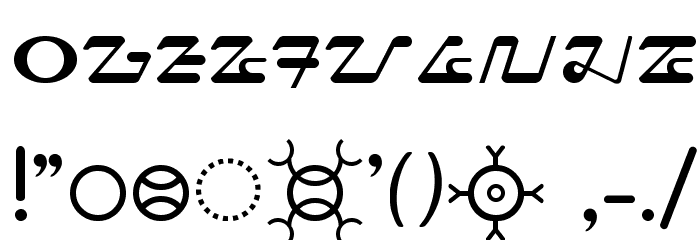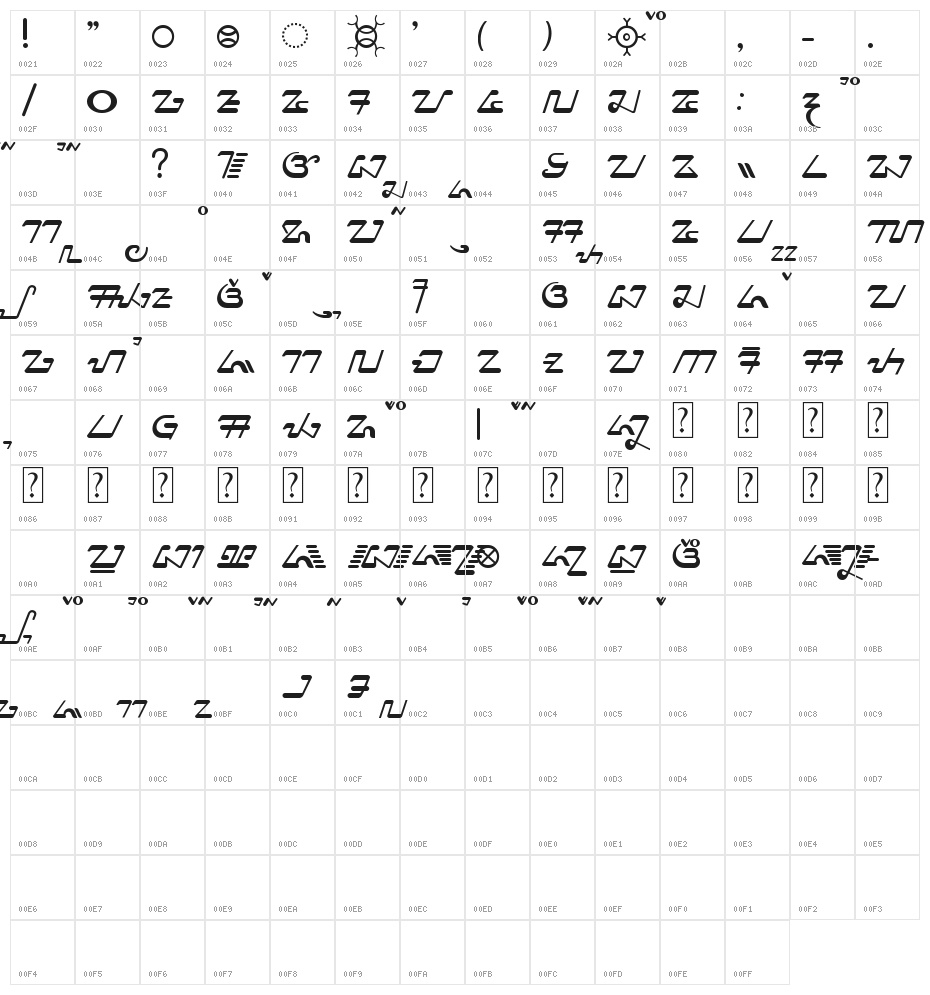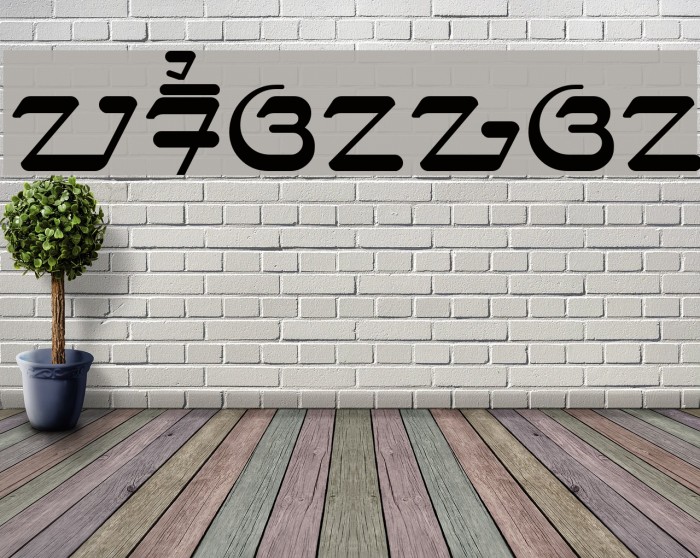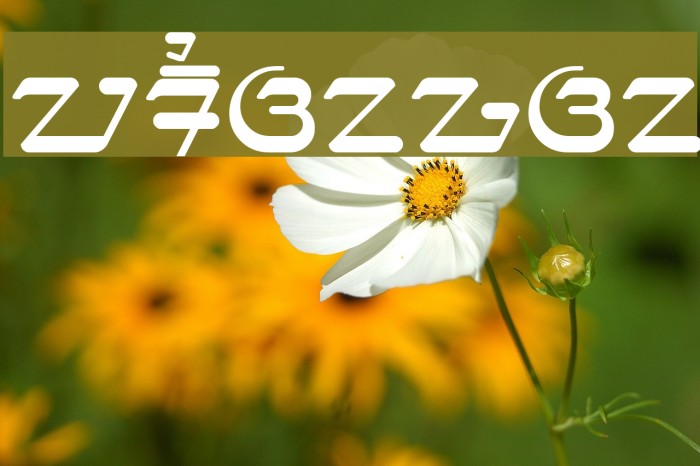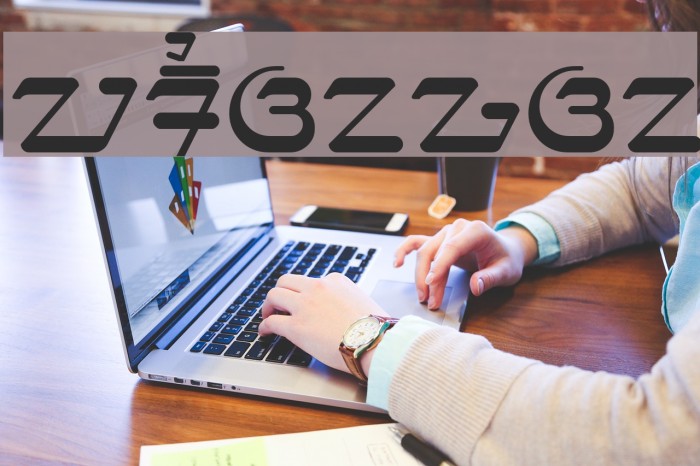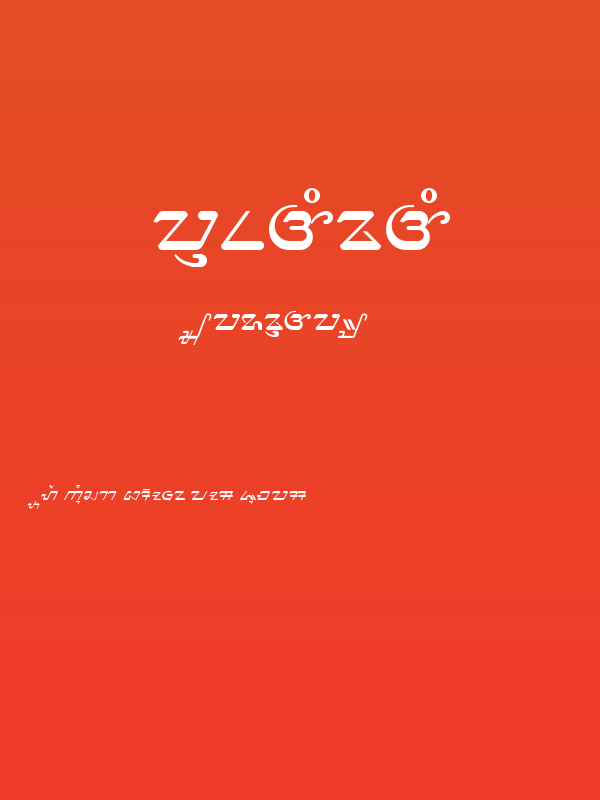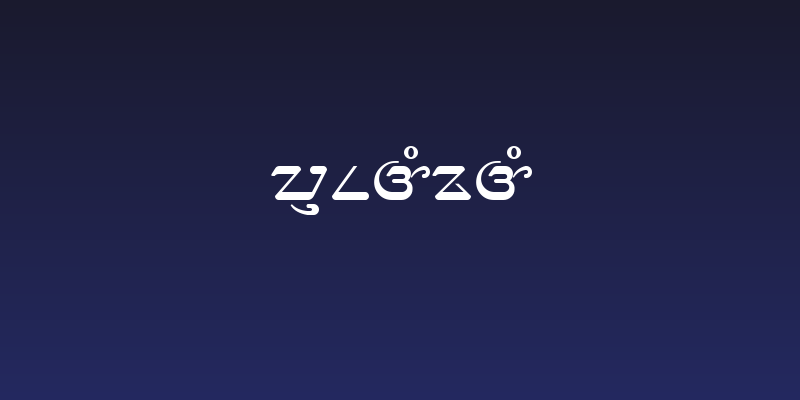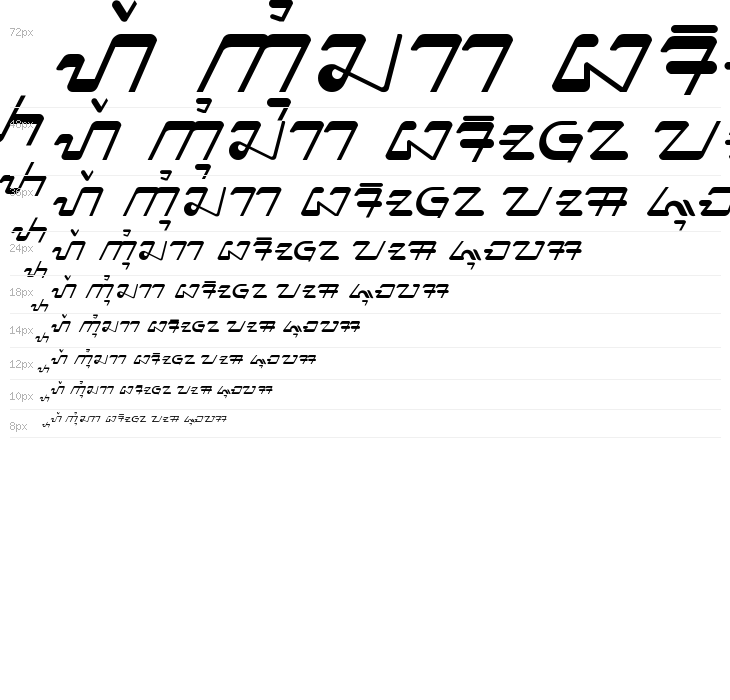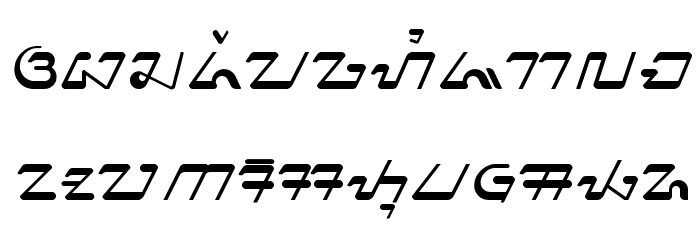
Priangan Font
Priangan Description
This font features a unique and decorative style, characterized by its flowing, interconnected strokes that create a sense of movement and fluidity. The characters are designed with a modern twist, incorporating both sharp angles and smooth curves. The overall appearance is dynamic and artistic, making it stand out as a display typeface. The special characters add an extra layer of creativity, with intricate designs that complement the alphabetic characters. This font is ideal for projects that require a bold and artistic touch, such as branding, posters, or creative digital content.